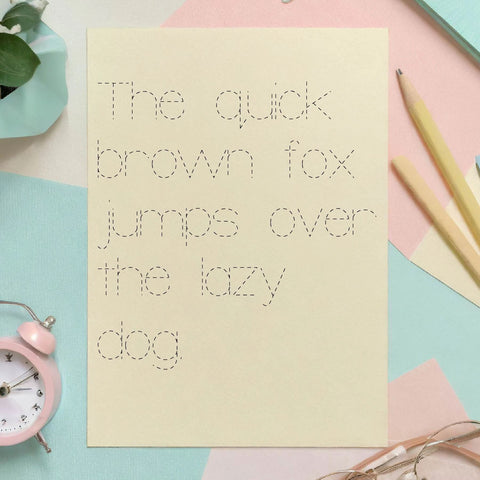
Single Line Dotted Font OTF, Fonts for Crafting, Handwritten Font
This font will be perfect for all your Craft projects! Use it to make custom shirts, keychains, valentines, tags, bags, and whatever else you can think of!